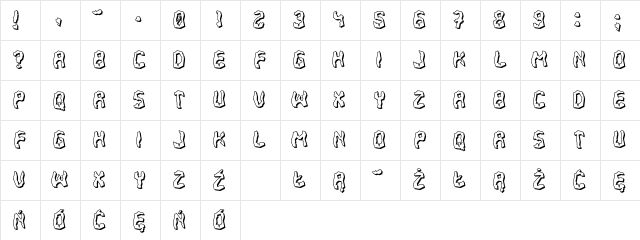
700 Fudge Regular Free Font
700 Fudge Regular
Foundry: High-Logic
Designer: High-Logic - Erwin Denissen 1999
Design Context for 700 Fudge
700 Fudge is a composed and adaptable typeface that performs quietly and consistently across a wide range of design contexts.